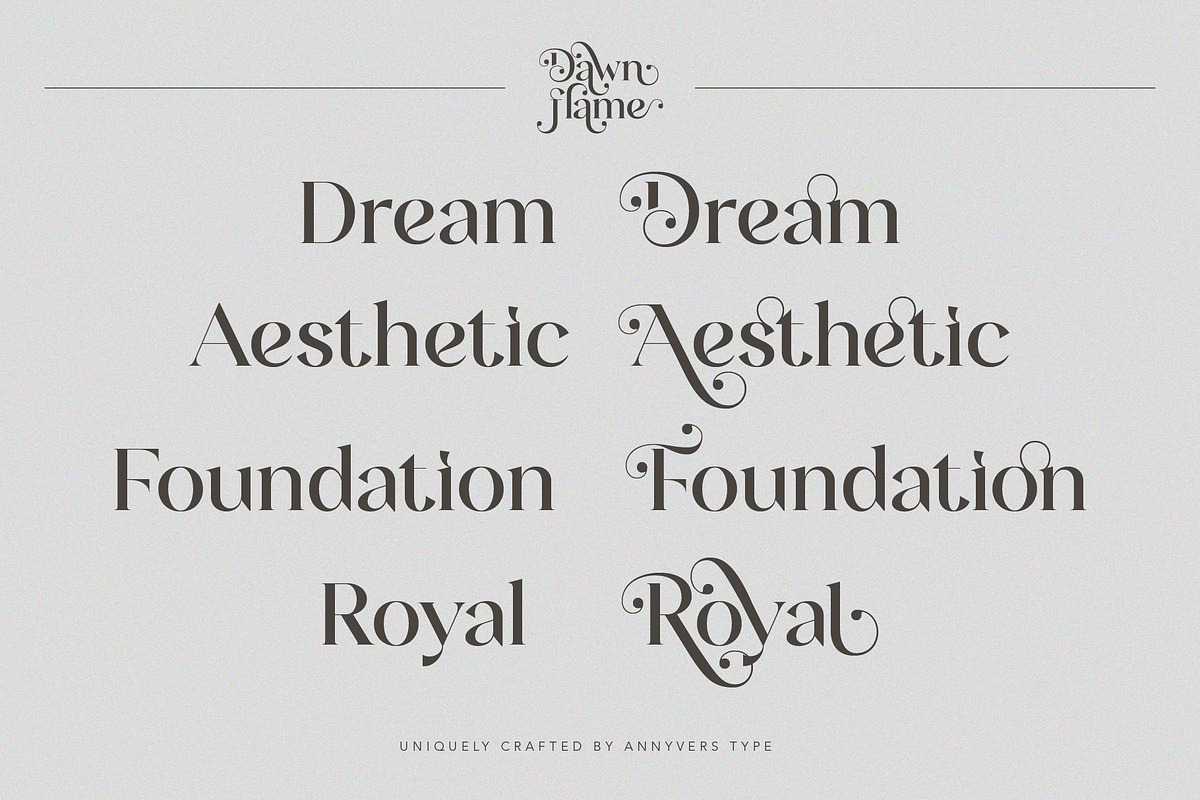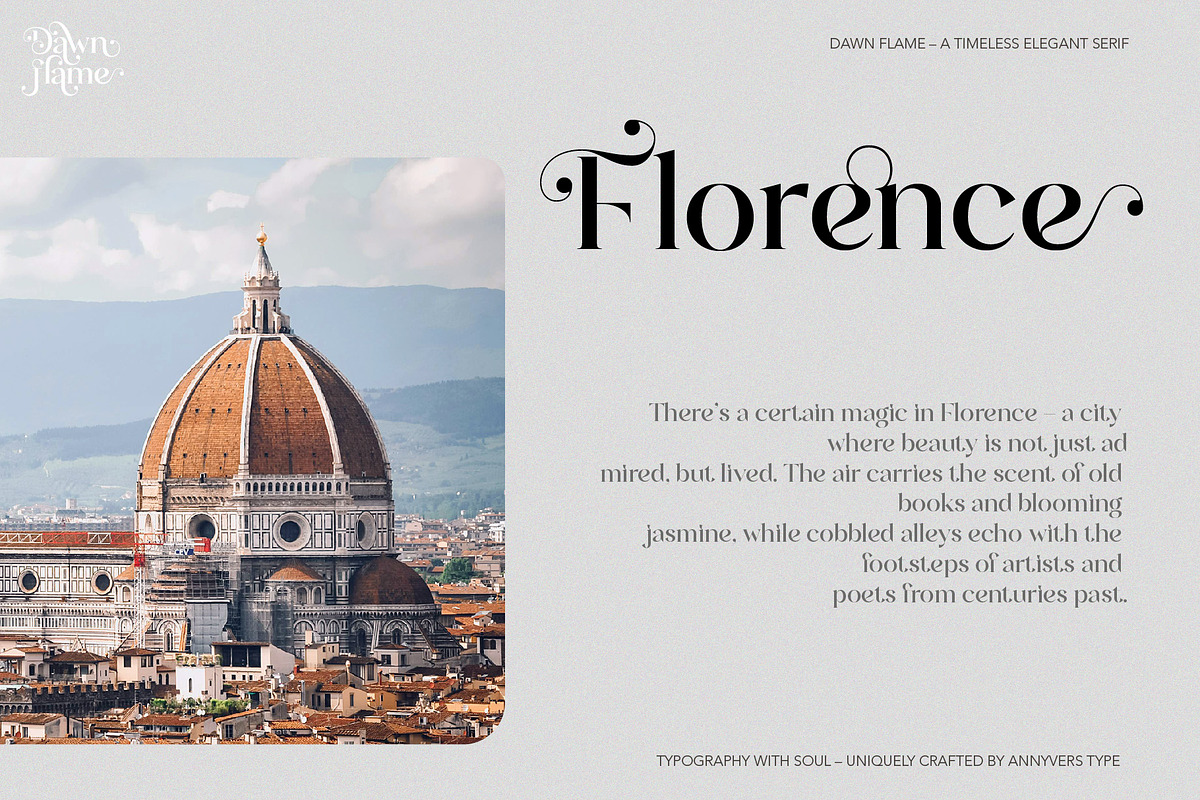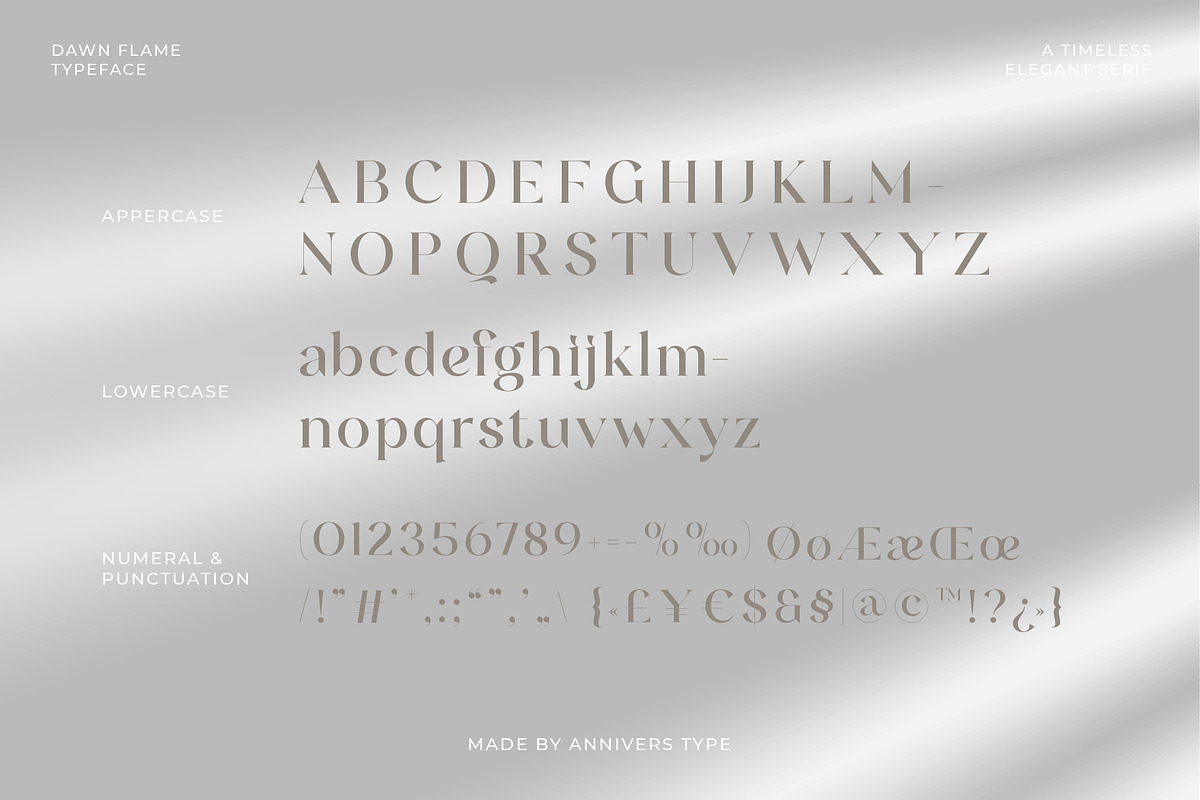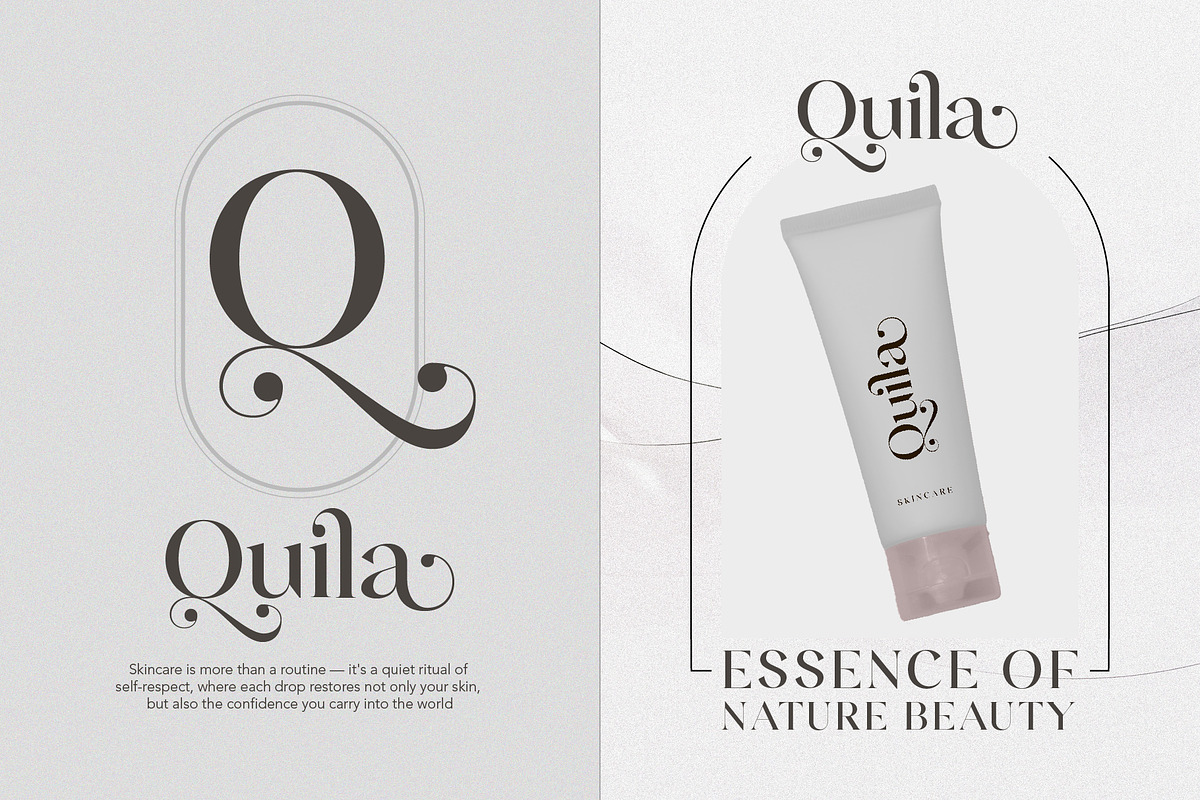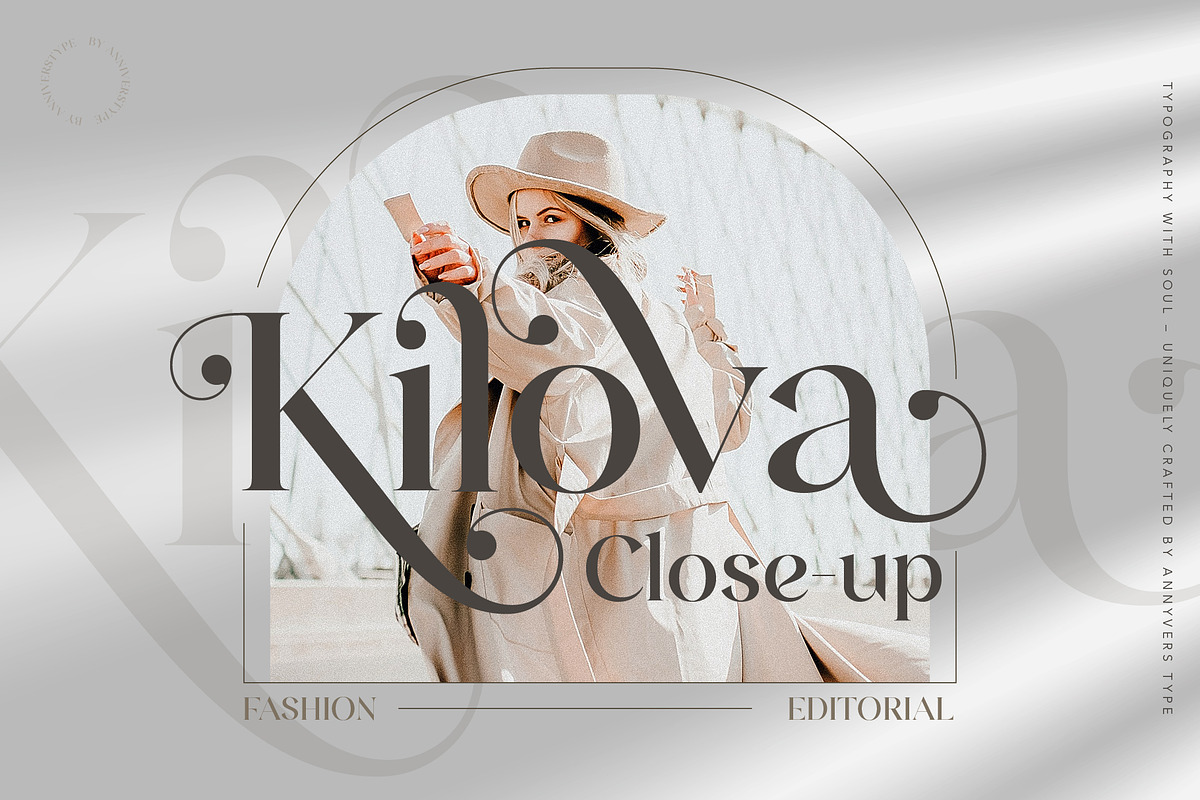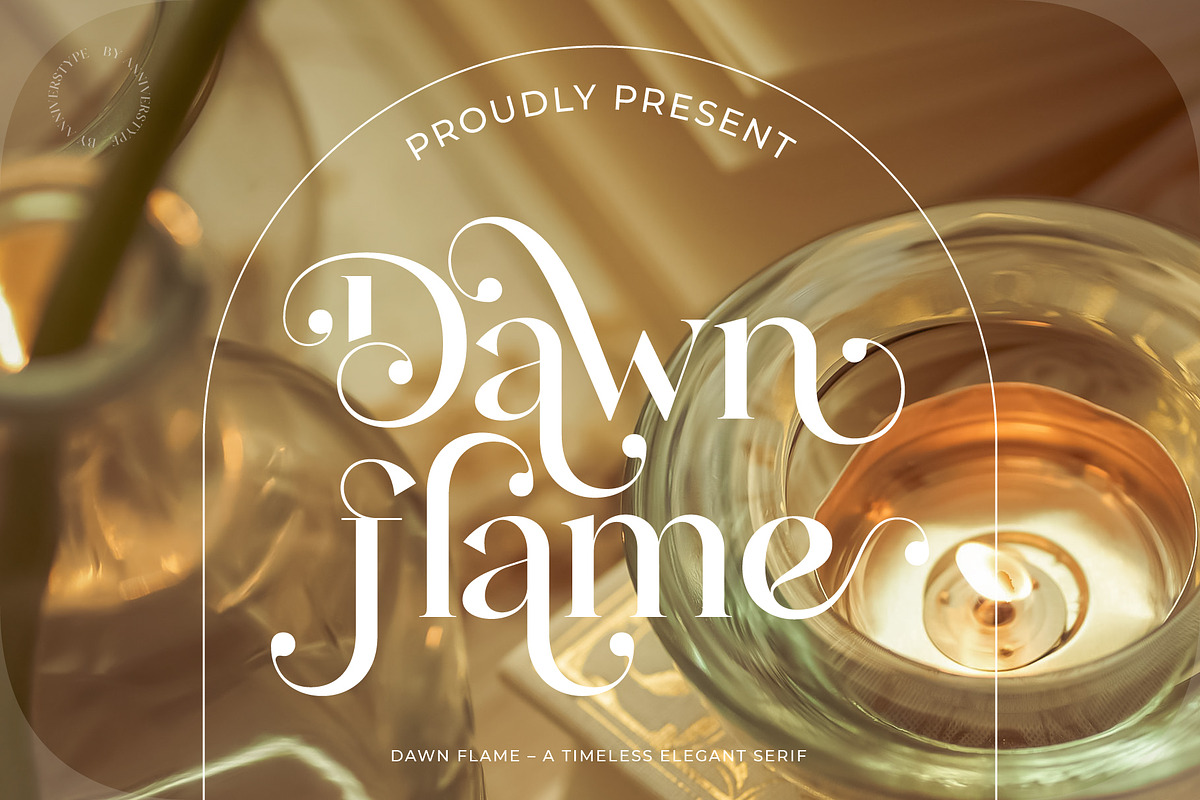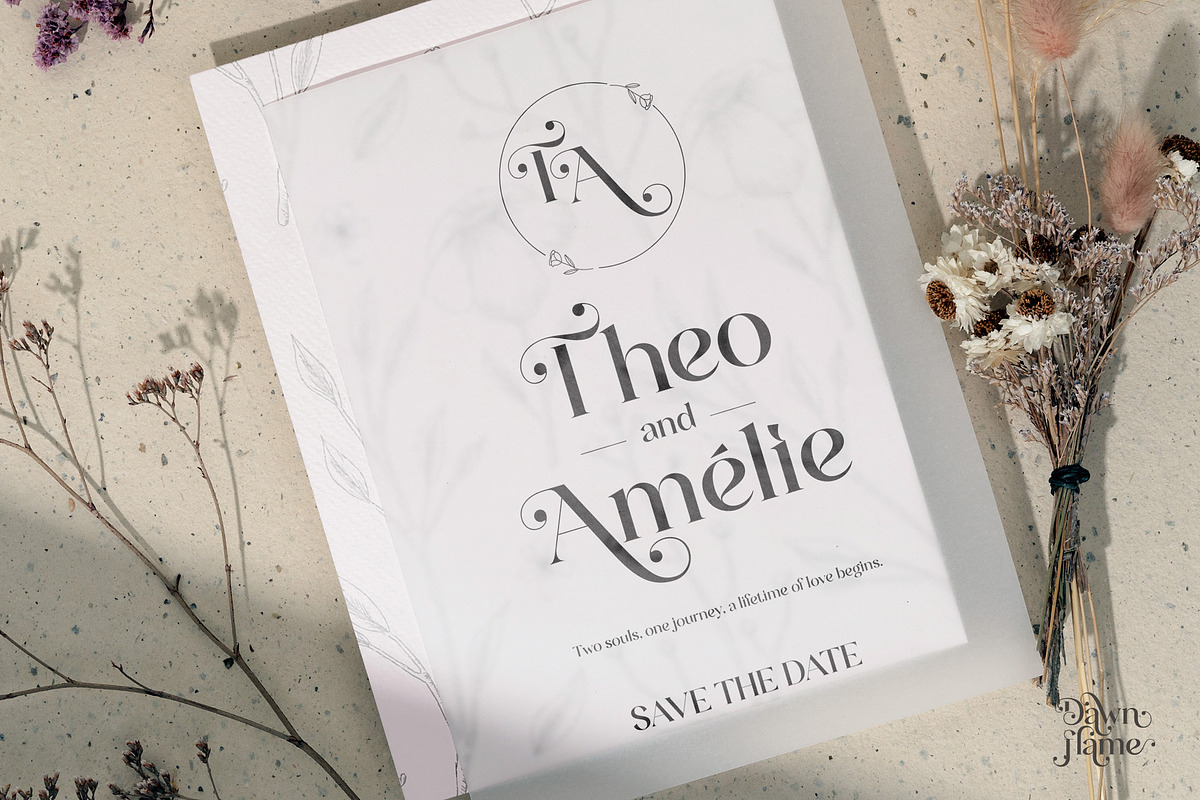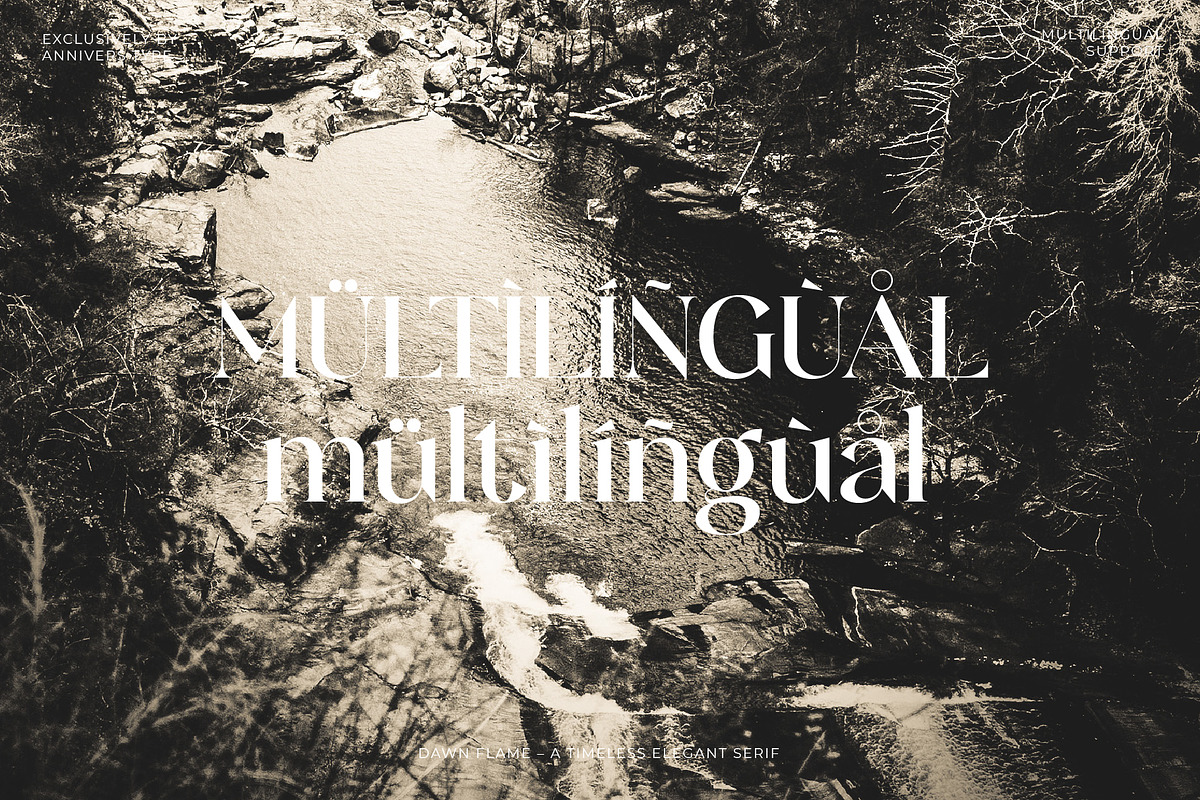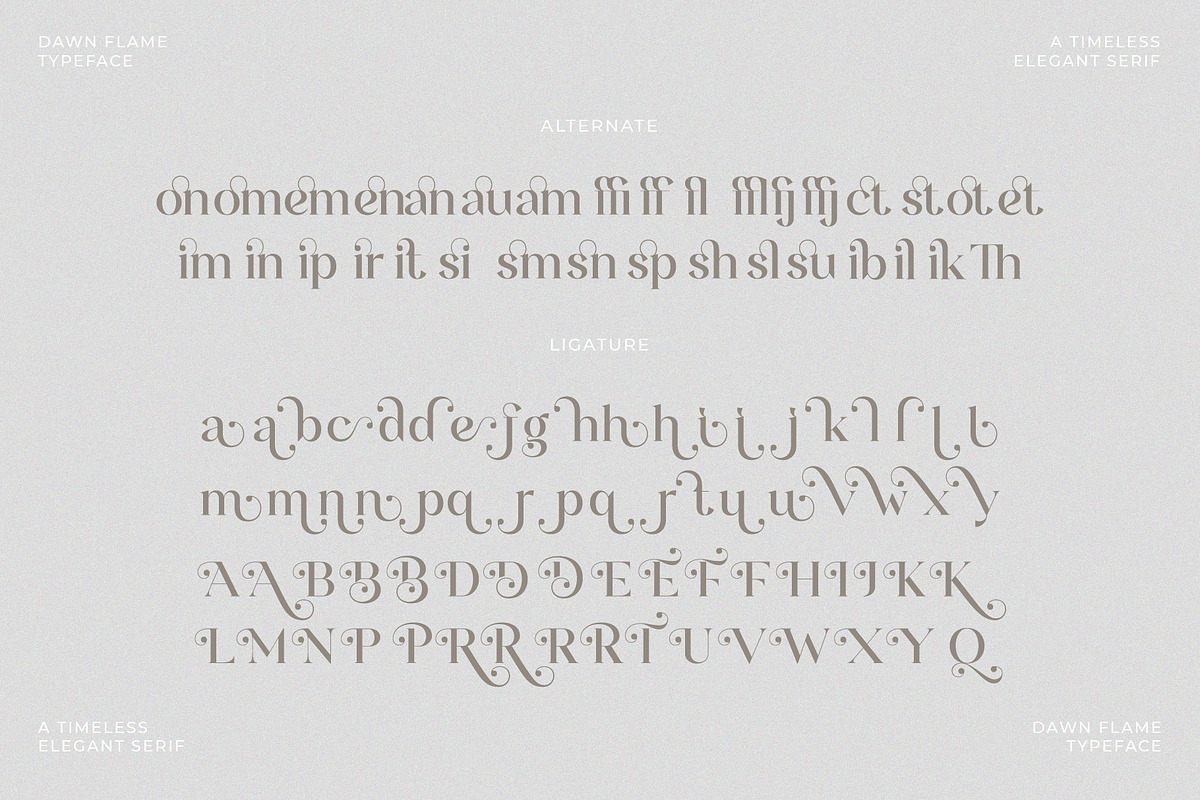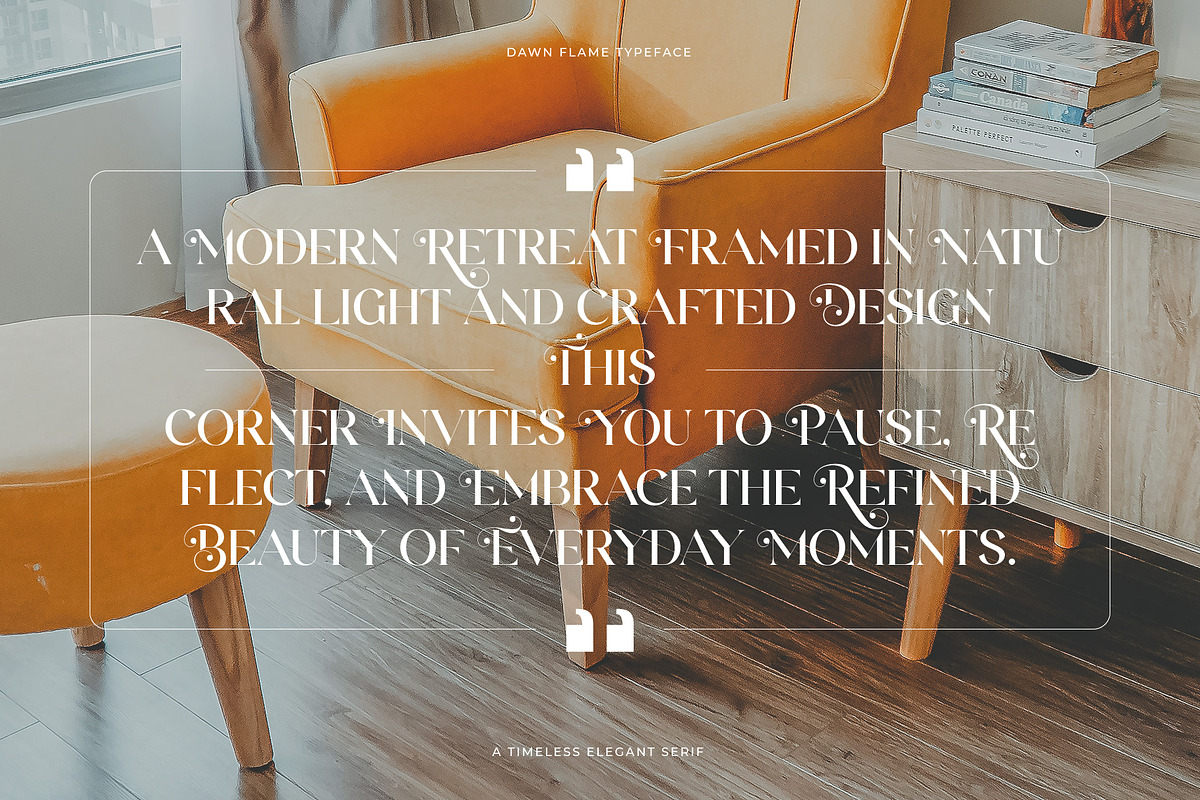
Dawn Flame – A Timeless Serif
Dawn Flame is a serif font that captures the perfect harmony between timeless beauty and refined elegance. With its graceful curves and distinctive swashes, Dawn Flame brings a touch of sophistication to every design it touches.
Whether you’re crafting branding for boutique products, editorial layouts, wedding invitations, or luxury packaging, Dawn Flame delivers a strong yet feminine character that speaks style and class. Its high contrast and expressive details make it ideal for impactful headlines, logos, and artistic compositions.
From modern minimalism to romantic flourishes, Dawn Flame adapts beautifully—giving your work a signature look that feels both classic and fresh.
Elevate your designs with Dawn Flame — a serif font crafted to shine with elegance and charm.
- uppercase and lowercase
- numerals and punctuation
- OpenType features (ligatures and alternates)
Elevate your designs with Dawn Flame — a serif font crafted to shine with elegance and charm.